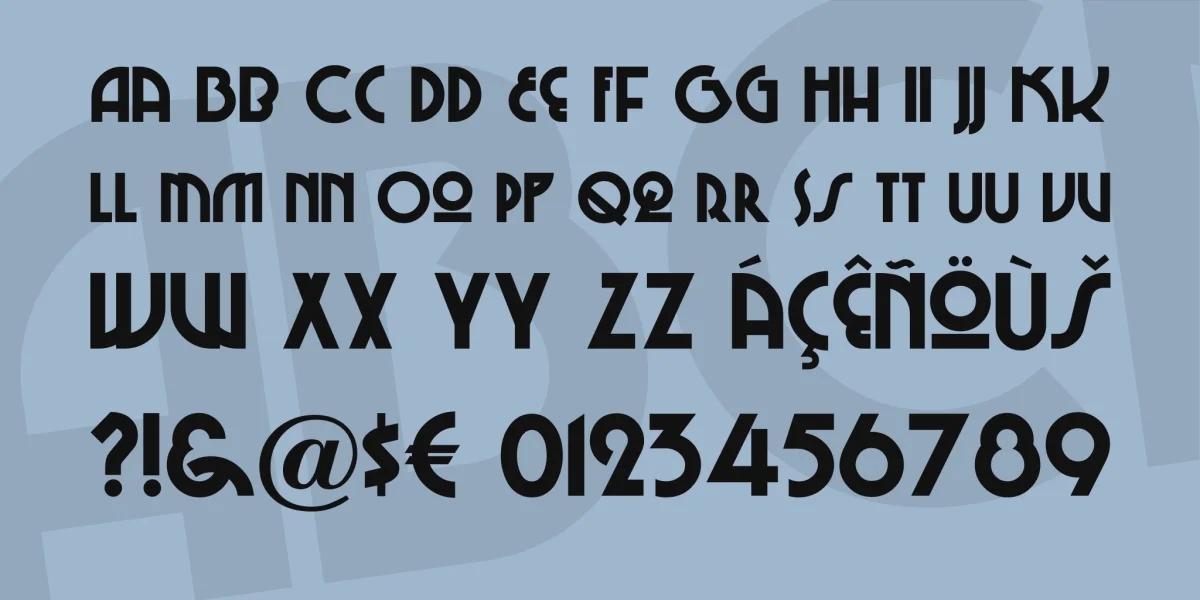
Reminescent of the aluminum lettering that used to adorn buildings in my old hometown — the Windy City, the City of Big Shoulders, Stinkoville (the original Native American meaning of “Chicago”). Big, bold, in your face — yep, the name is right.